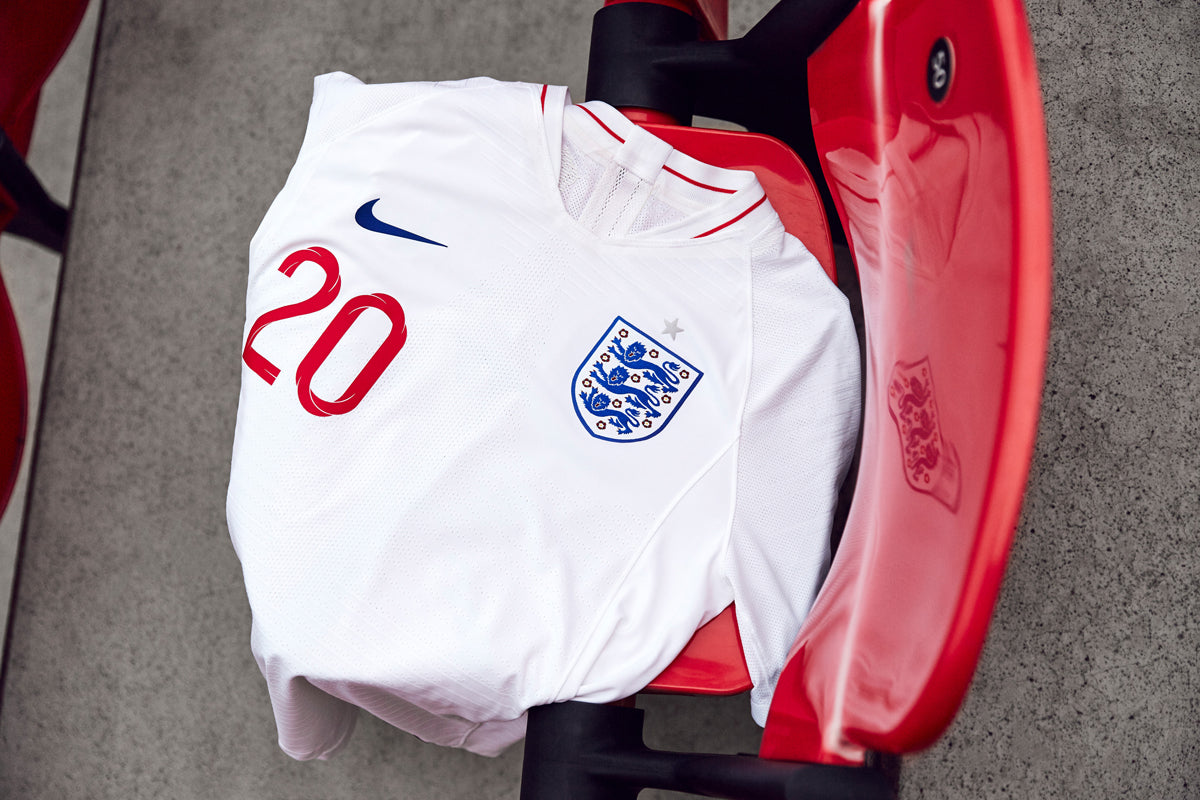
This article will delve deeper into the font choices of the 32 different national soccer teams. The research for this article led me to discover that not a lot of countries actually took the time to properly select (or create) a unique and efficient typeface for their soccer kits and that actually most of them just went with the brand's pre-selected font.
In a world where brands dictate these types of major events we see a clear correlation between the choice of fonts and their sponsors which is a bit sad for the design world.
The Nike Standard Font
For this installation of the World Cup, Nike went with what seems to be a slightly condensed geometric that feels a bit like Futura or Avant Garde. A lot of teams are using this standard font for their kits — Australia, Croatia, France, Poland, Saudi Arabia & South Korea.
I feel this font gets the job done. It's legible and graphic enough to go with the cut and fit of the kit's material but it might come off as a bit blend or without personality. Australia for example, might have gone with a funkier font to match the graphic on the sleeves.
The Adidas Standard Font
Even more football teams (12 of the 32 competing for the world cup) decided to go with the adidas standard font. A super square geometric font which reminds me of the widely popular pixel fonts back in the early to mid 2000s.
The font works well for the numbers maybe except the 1 that has a longer horizontal which makes it potentially confusable with the 7. They are easy to read even at great distances but I feel the font falls short where the rest of the alphabet comes into play. As you can see from the images below, some of the letters' shape are really similar and can become hard to read from far especially the B, K and R.
The best example (and already viral) is the name of German player Draxler. The A and the R are so similar that's it's almost impossible to differentiate the two. The D can also be mistaken for an O. What do you read at first glance? This makes it a very poor typeface choice by those teams.
The Puma Standard Font
Puma is the sponsor for 4 world cup teams Senegal, Serbia, Switzerland and Uruguay and they too have a standard fonts that those teams decided to use. The font is a bit peculiar but I feel it works. The numbers are legible but at the same time they have this playfulness to them. They kept the letters clean with no fuss to make sure every name printed would come out readable.
The England Font
One of the biggest football nation in the world, England, went with a beautifully designed custom typeface by designer Craig Ward. He says the type was modeled in 3D to feature the St George's cross and create a dynamic, twisting design which features inline, outline and fill weights along with a complementary numeral for use at larger sizes.
The font is unique and beautifully made. It stands out and completes the kit very well. As a designer, I feel every football team should have taken the time to create a custom typeface. The attention to details makes such a difference especially in an event that's viewed by this many people.
Other Notable Fonts
Nigeria as obviously the best kit design. It sold out really quick when it actually came out! The pattern they used feels inspired and rooted in African culture. The font is simple but has some key details that complements the kit really well.
Another notable kit design and font selection is Peru. It's the only team that went with a bold print: a red diagonal stroke across the shirt. The font is super bold as well. Personally, I think it's a bit too much of everything going on but it's definitely different and unique.